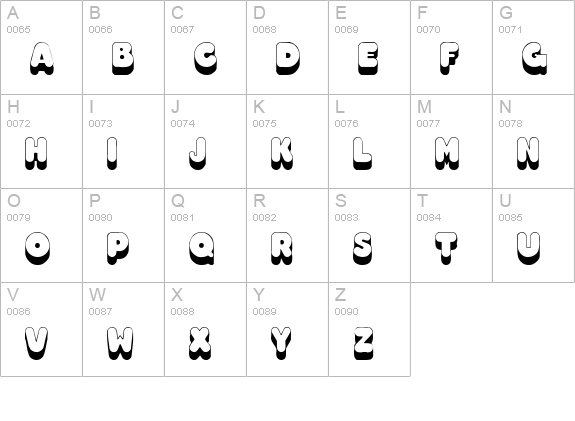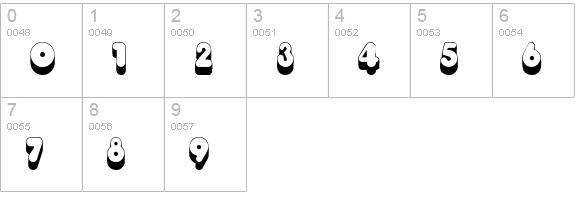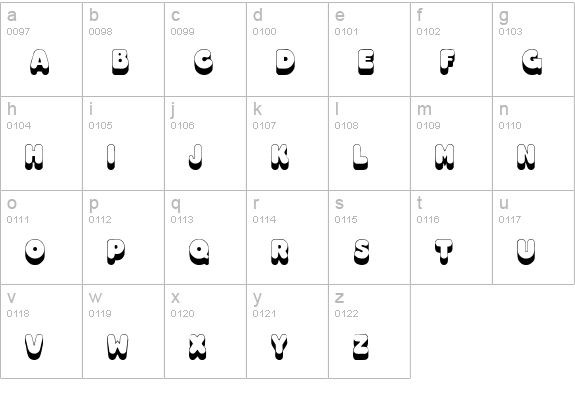
HotDog Font Details
HotDog font is a fun and playful typeface that is sure to add a touch of whimsy to any design project. With its rounded edges and quirky characters, this font exudes a sense of lightheartedness and creativity. Perfect for use in children's books, party invitations, or any project that could benefit from a touch of personality. Best of all, HotDog font is completely free to download at FontsMarket.com. Take advantage of this fantastic offer and add a unique flair to your designs today!